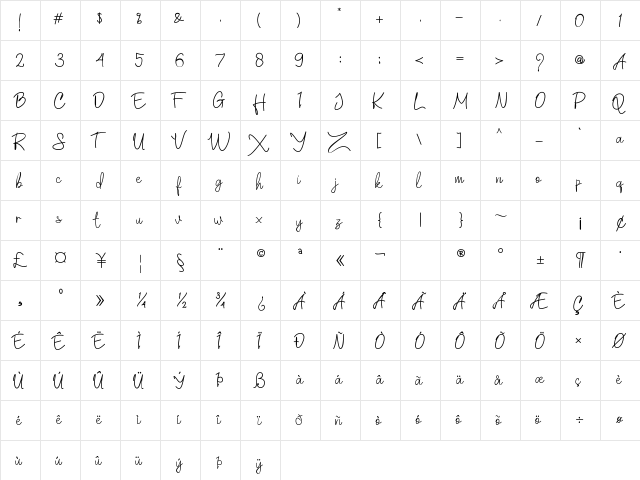
Villaga Regular
Design Context for Villaga Typeface
Villaga is a composed and adaptable typeface that performs quietly and consistently across a wide range of design contexts.